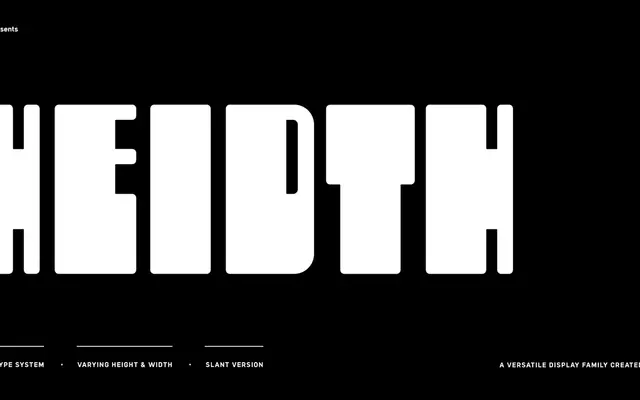
Heidth Variable
A variable display typeface with independent height and width axes, producing extremes from regular to tall-wide in two styles: upright and slanted.
Two variable fonts, one upright and one slanted, each offering continuous control over both the height and width of letterforms across four named instances: Regular, Wide, Tall and Tall Wide. The axes allow dramatic shifts in proportion suited to posters, packaging and branding layouts where orientation and space vary. Glyph coverage extends through Latin Extended-A and -B with a handful of alternates for descender characters.
Explicitly designed as a display font with variable axes controlling height and width extremes; the expressive, shape-shifting nature places it firmly in the display category with no conventional weight classification.